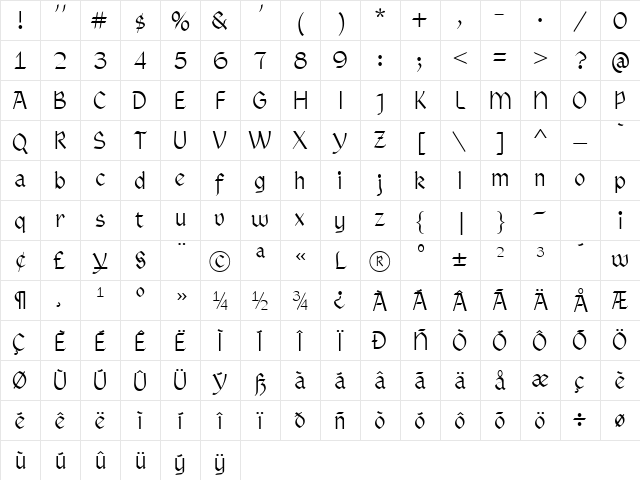
Rundigsburg Plain Free Font
Rundigsburg Plain
Rundigsburg Family
Rundigsburg Plain
Design Context for Rundigsburg
Rundigsburg is a composed and adaptable typeface that performs quietly and consistently across a wide range of design contexts.